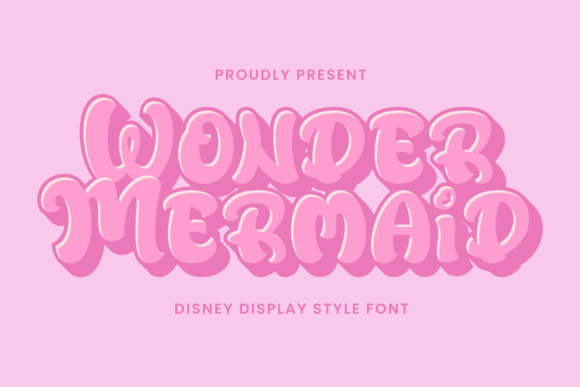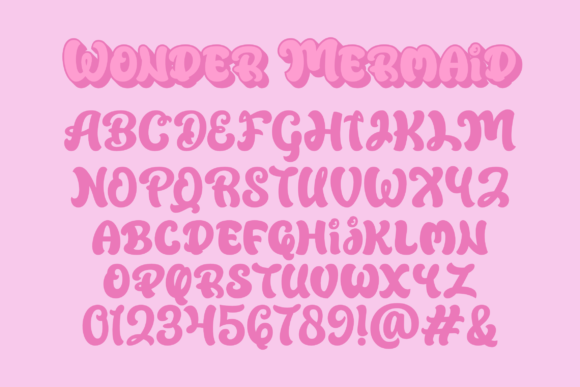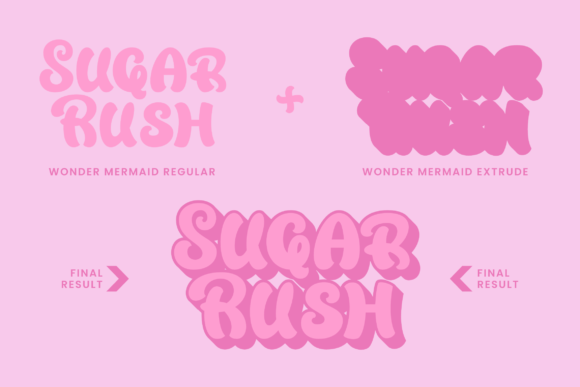
Wonder Mermaid is a display font with a unique style. This font is inspired by the Walt Disney font. So the design can be more attractive.
Wonder Mermaid Font